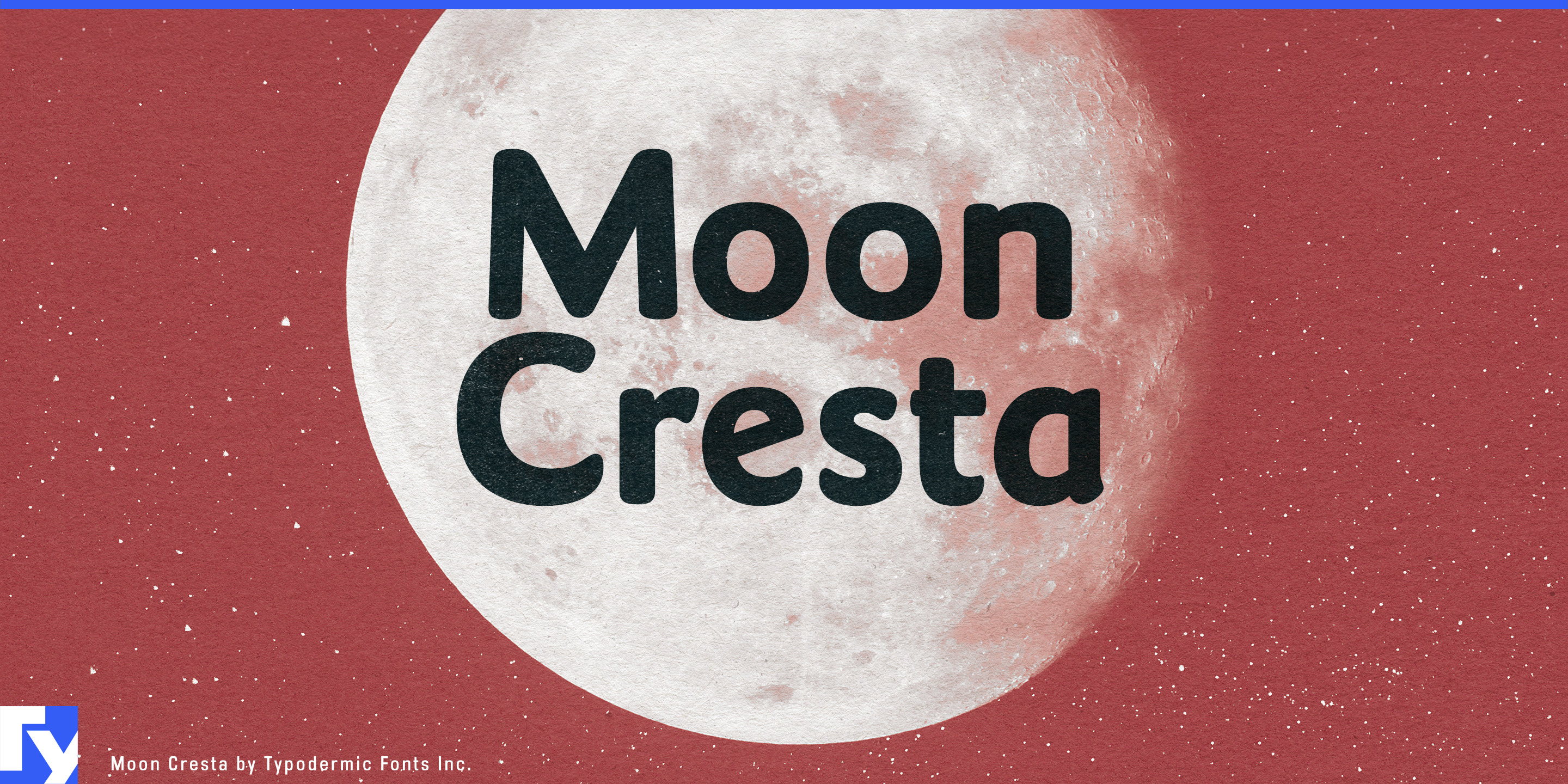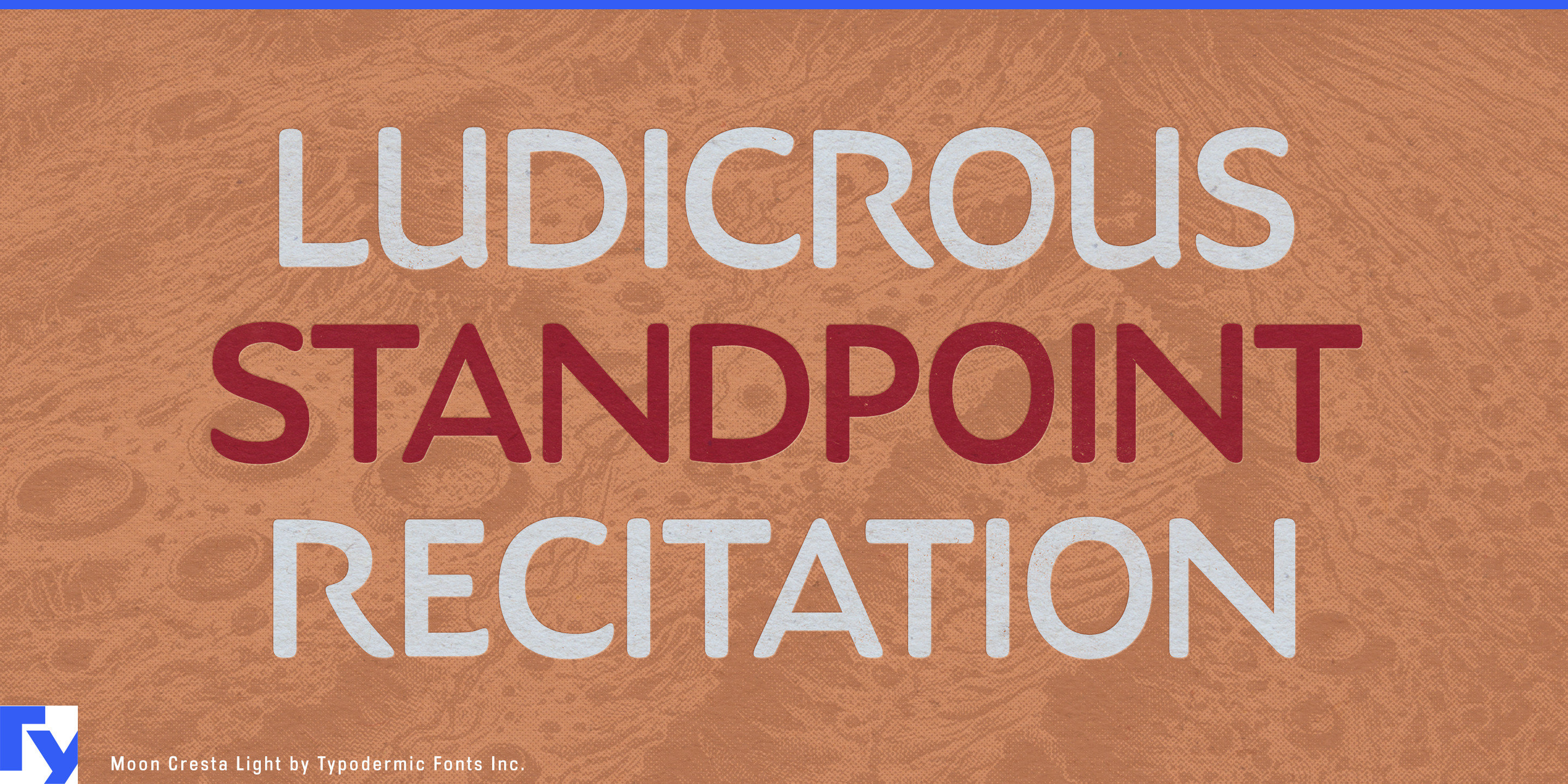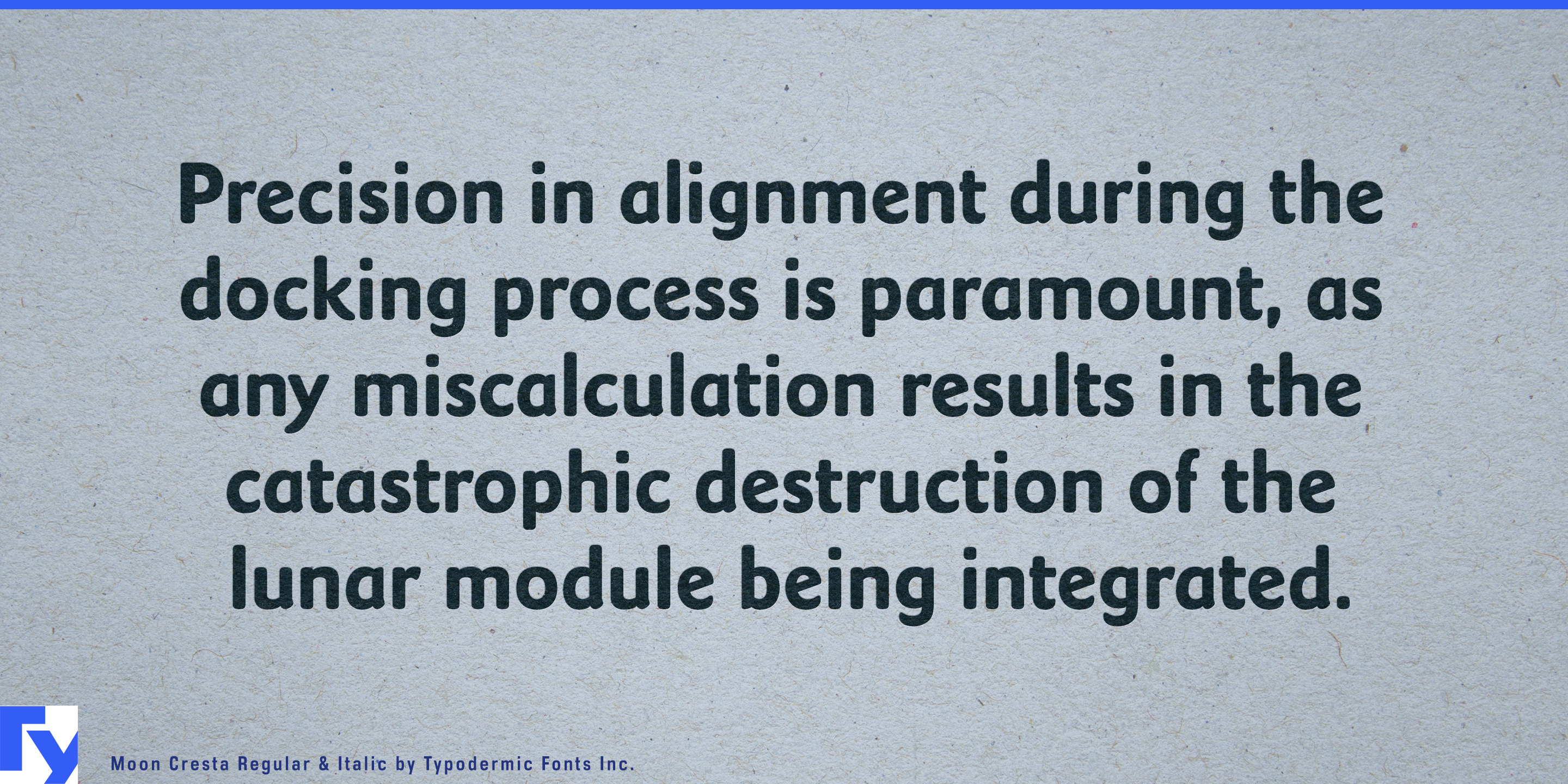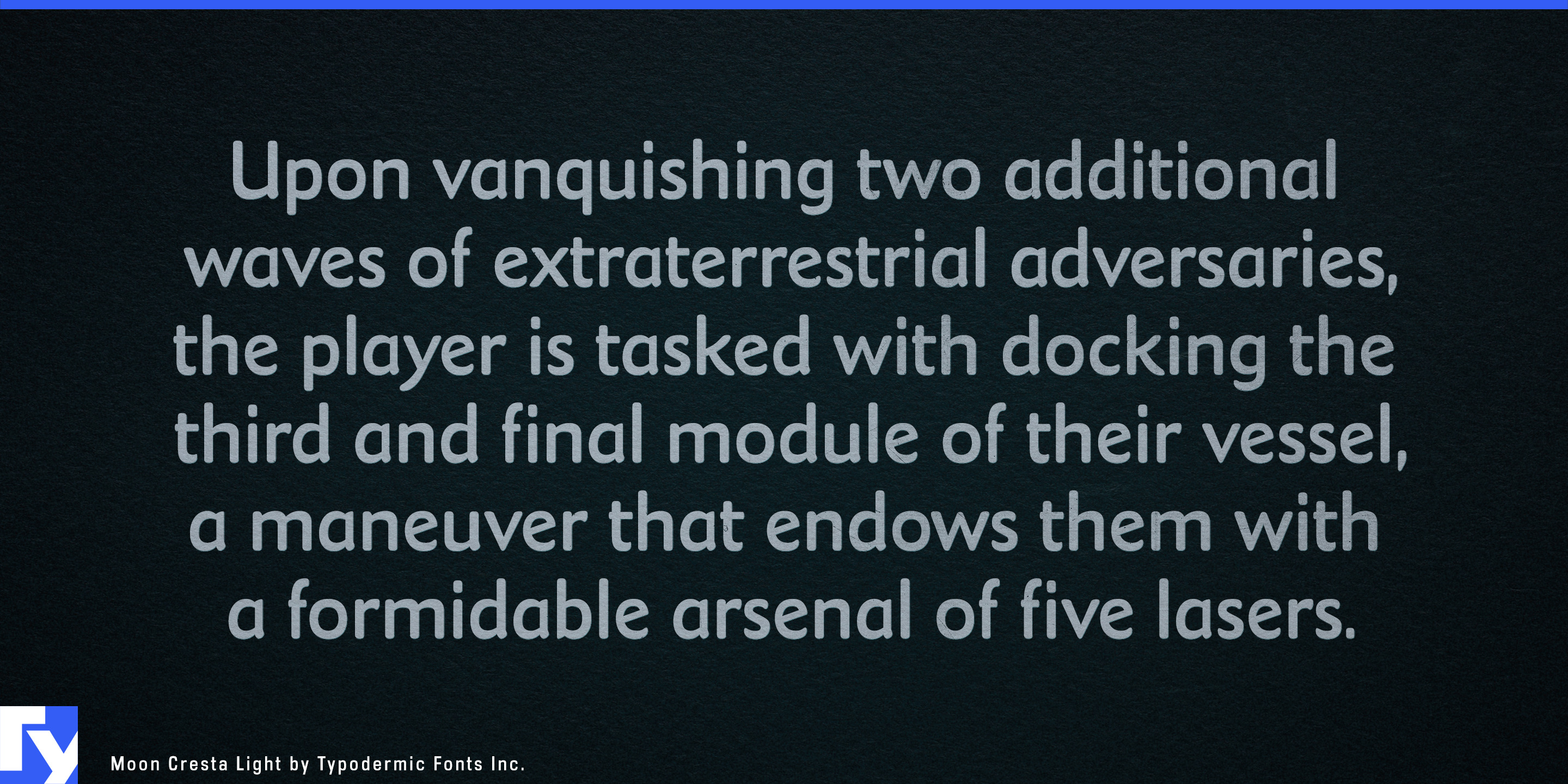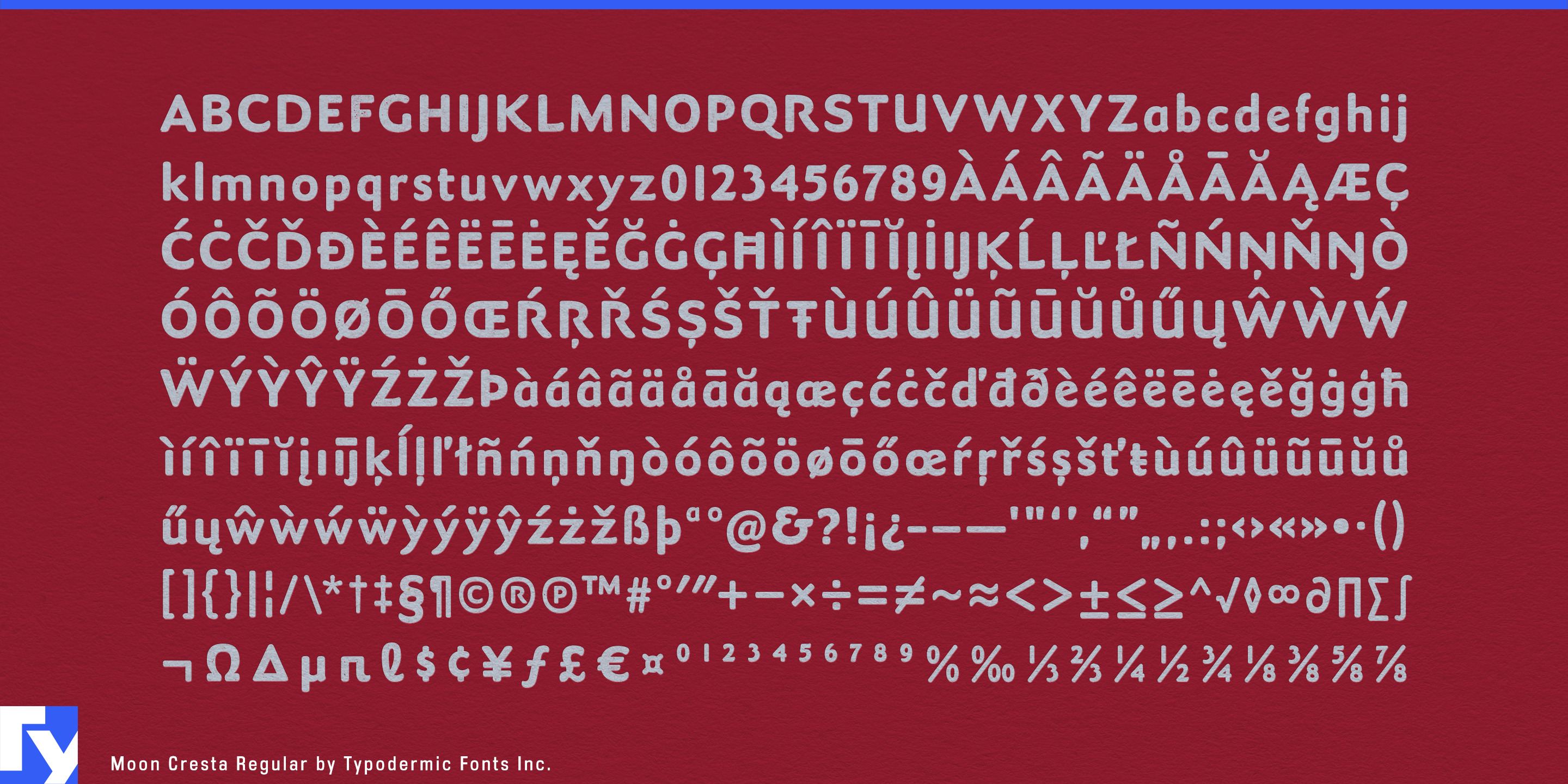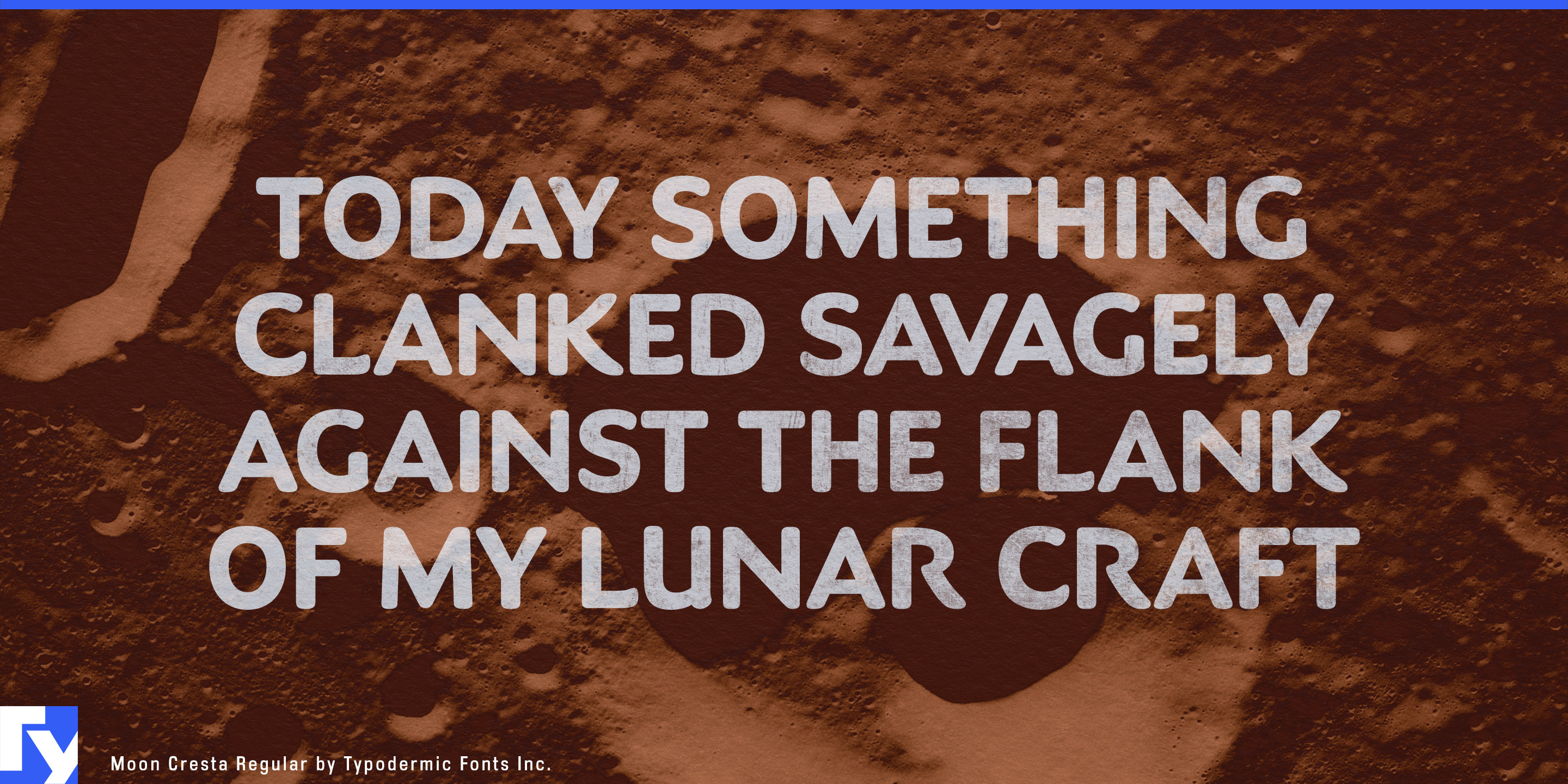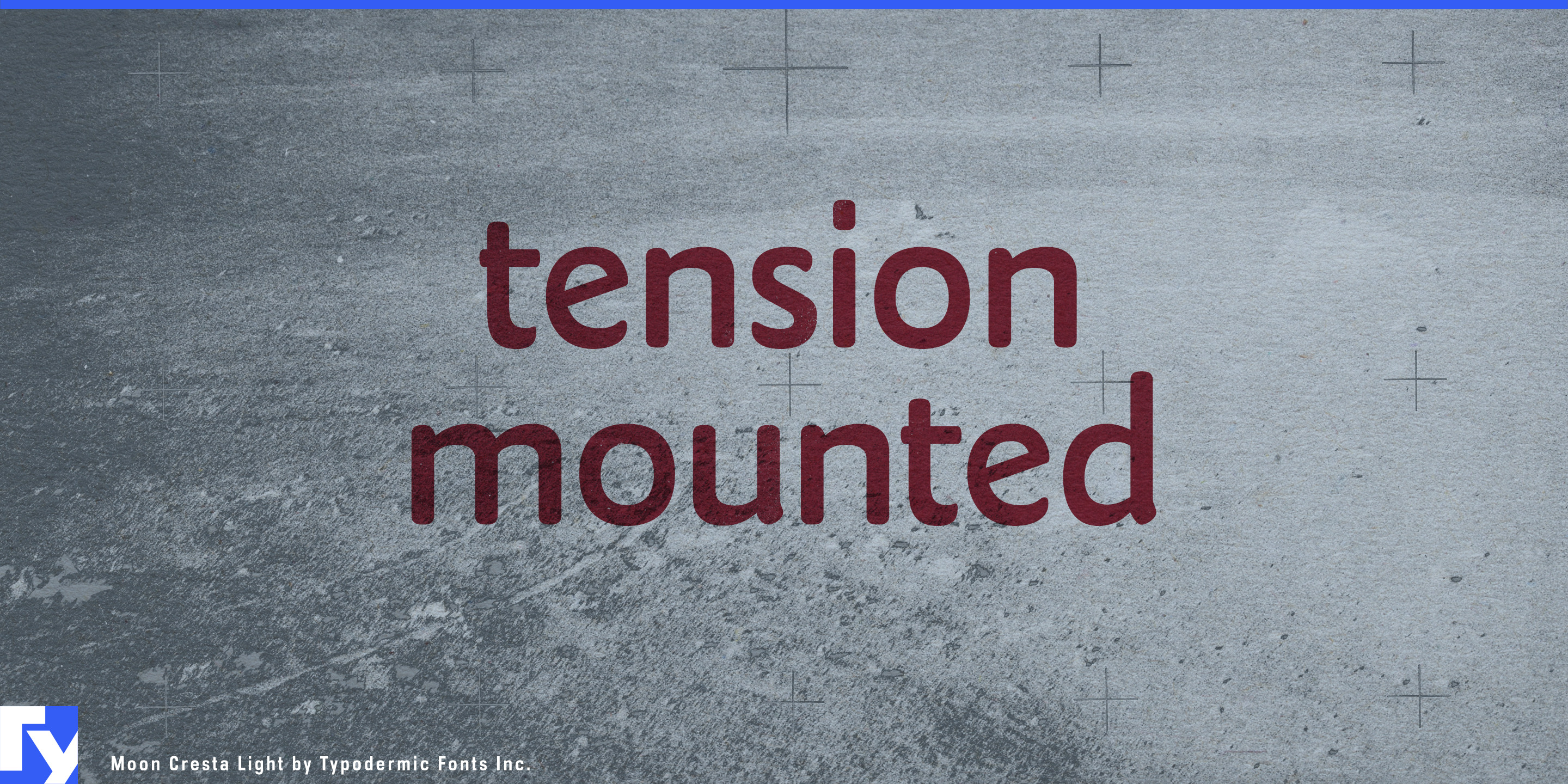
Moon Cresta
Moon Cresta is where humanist warmth meets mission-ready precision. Inspired by Fredric Goudy’s overlooked sans serif and reimagined for a new era, it retains the approachable proportions and subtle calligraphic grace of its ancestor, but with softened terminals and steady strokes that make every letter feel both familiar and finely engineered.
In Regular, it stands with quiet confidence—perfect for headlines that need to speak clearly without shouting. The Light weight drapes that same clarity in a more delicate glow, ideal for text, captions, or airy layouts. Pair them, and you’ll find it easy to create hierarchy and contrast without breaking the visual tone. Ligature surprises—KA, RA, and a range of refined f-combos—wait beneath the surface, adding sophistication where you want it. Broad language coverage ensures that your words travel effortlessly from one hemisphere to the other, whether you’re addressing readers in Oslo, Lisbon, or Buenos Aires.
Its name nods to a classic arcade space mission, but the metaphor is apt: Moon Cresta is built for designers who need perfect alignment under pressure, dependable clarity in every condition, and a touch of cosmic charm. Whether you’re building a global identity, shaping editorial spreads, or crafting packaging with personality, Moon Cresta will bring your message safely into orbit.